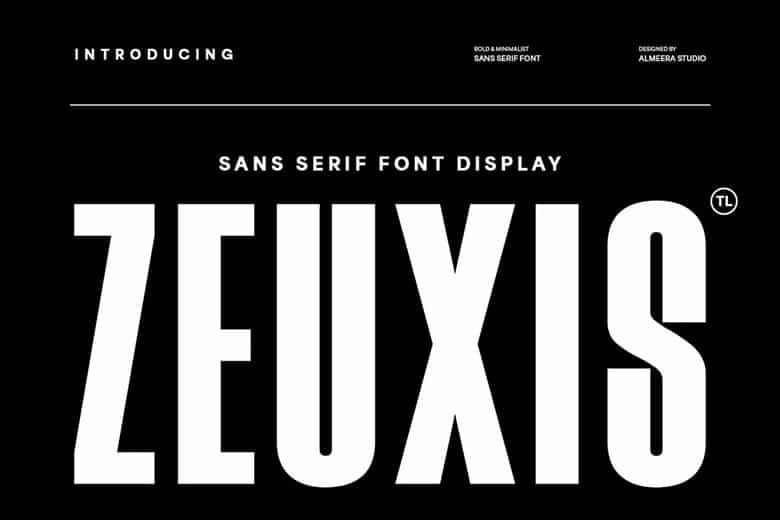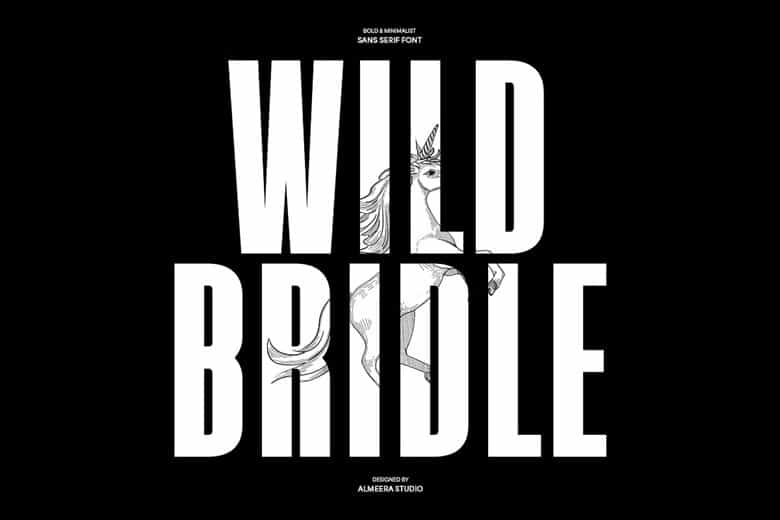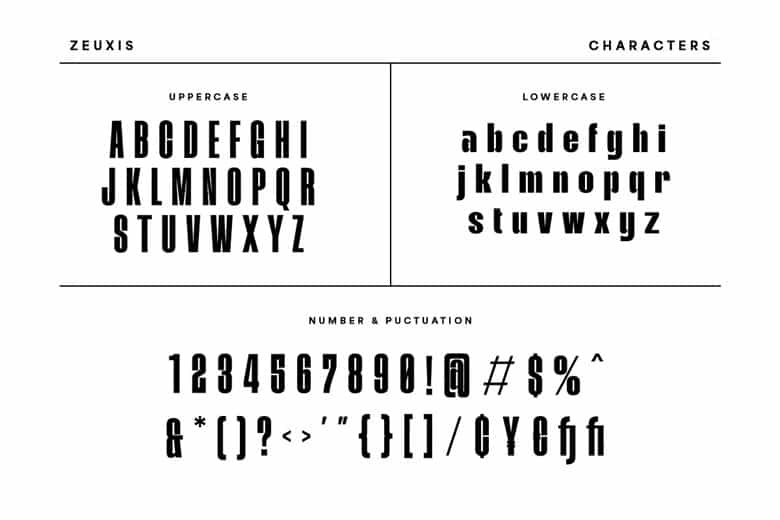
Zeuxis is a bold and minimalist look vibrant CRAZY font with a huge visual impact. This bold exhibitory typeface is your brand new modern branding, heavy-duty headines, versatile logos and any task, that requires the straight-and-to-the-point attitude. Zeuxis is characterized by clean, effective lines and strong letterforms guaranteeing excellent readability and a very modern effect.